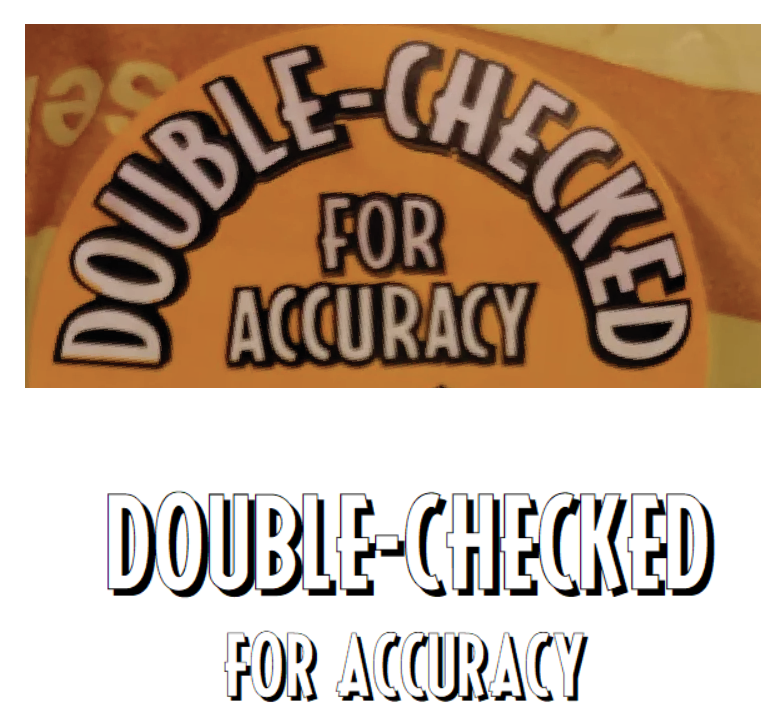
I’ve tried what the font and identifont with no luck.
To me, it looks like a free font by Nick Curtis, Ricks American NF. Note a slight variations in a couple of the letters. Fontsquirrel doesn’t have it. You can find it at 1001fonts. They are a reputable site. Ricks American NF Font · 1001 Fonts